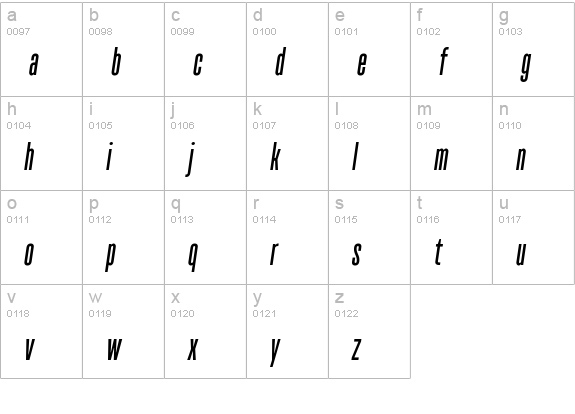
TT Bluescreens Bold Italic is a strong, high-contrast, italic variant in the TT typeface family \xE2\x80\x94 well suited to headlines, attention-grabbing titles, and strong calls-to-action.
TT Bluescreens Bold Italic is a striking and modern typeface that will make your designs stand out. Its bold and italic style exudes a sense of confidence and strength, making it perfect for headlines, titles, and other attention-grabbing text. The unique design of this font gives it a futuristic and tech-savvy look, making it ideal for projects related to technology, gaming, or science. What's even better is that TT Bluescreens Bold Italic is available for free download at FontsMarket.com. This means you can easily add this eye-catching font to your collection without breaking the bank. Whether you're a designer looking to spice up your projects or a business owner wanting to make a statement with your branding, TT Bluescreens Bold Italic is a versatile and stylish choice that won't disappoint. Download it today and unleash the power of this bold and italic font in your next project.